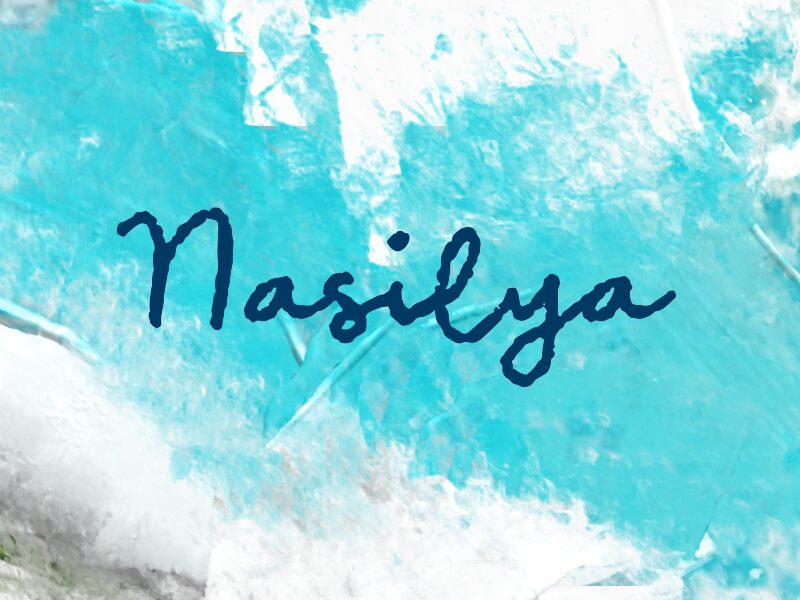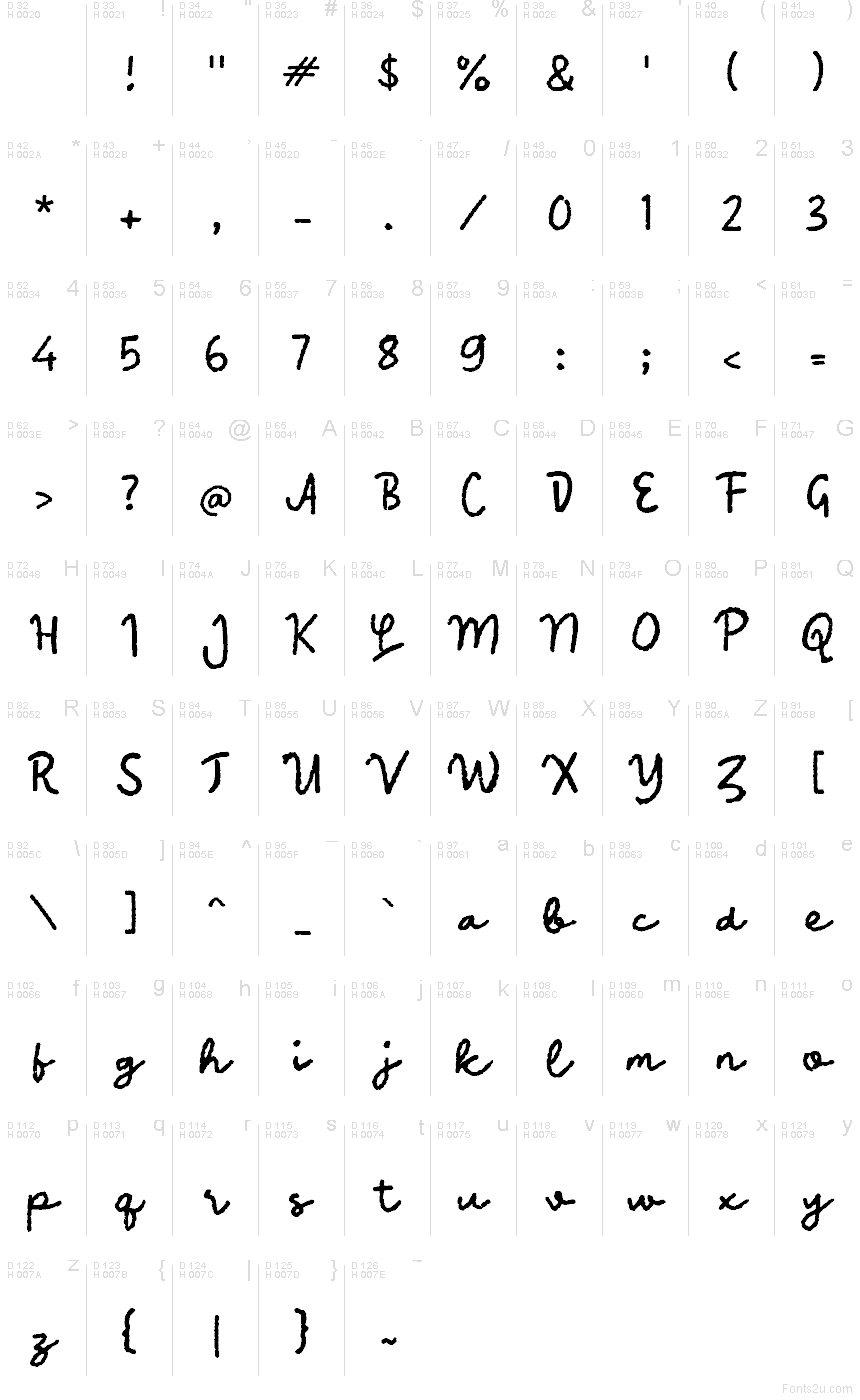
Nasilya
Nasilya font by wep is a free handwritten typeface that gives you the loose, inky scrawl of real pen on paper without looking staged or overly cute. Its slightly shaky strokes, uneven pressure, and rough edges feel like notes ripped from a sketchbook, adding a human, imperfect warmth that polished scripts can’t match. Letters connect with an easy rhythm, so lines read as quick, candid handwriting rather than decorative lettering.
Using Nasilya, you can bring that raw, personal touch to social media graphics, quote posts, journal pages, zines, handmade product labels, and casual branding for creative studios. This free font shines in short phrases and signatures; set it a bit larger for legibility and character. For balance, pair Nasilya with a clean geometric sans that lets its scratchy texture and spontaneous energy stand out.